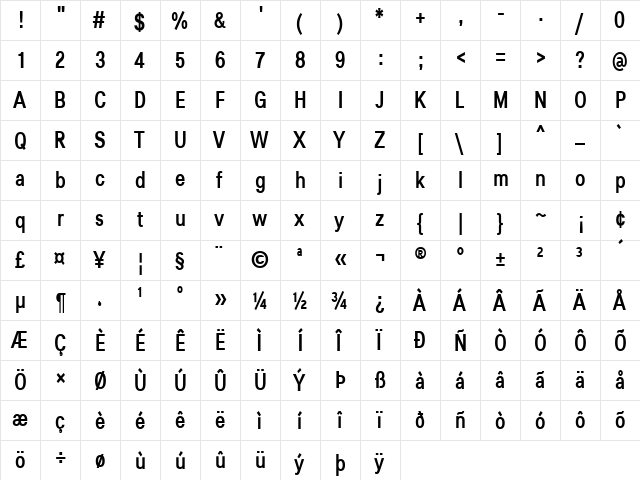
Lunchtype25 Condensed Medium
Condensed Medium · Steppot Lunchtype.com ·
Foundry Steppot
StyleCondensed Medium
FoundrySteppot
DesignerLunchtype.com
Design Context for Lunchtype25 Typeface
Lunchtype25 is a composed and adaptable typeface that performs quietly and consistently across a wide range of design contexts. The condensed width makes it efficient for tight spaces without sacrificing legibility.